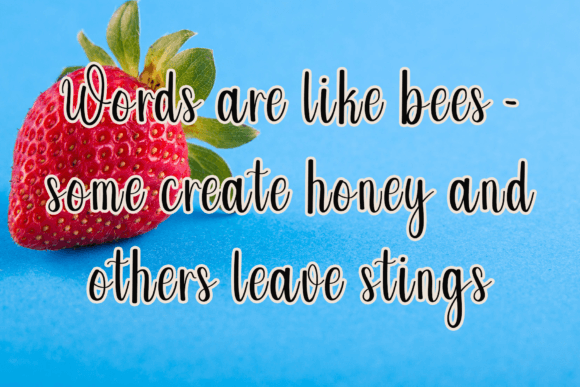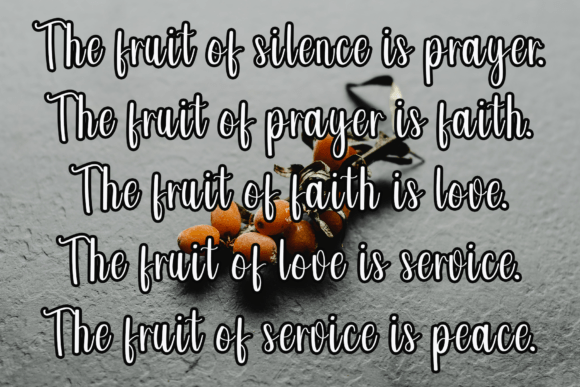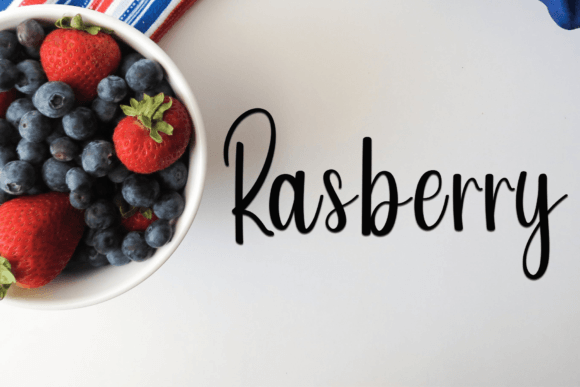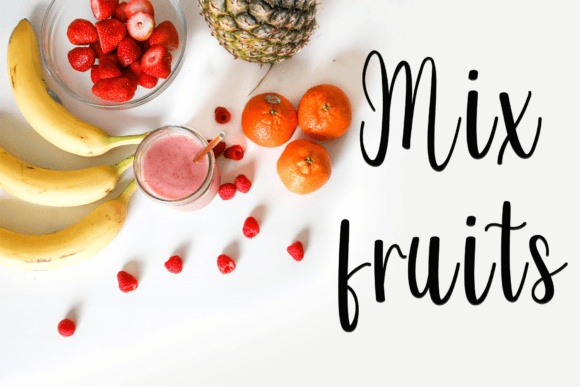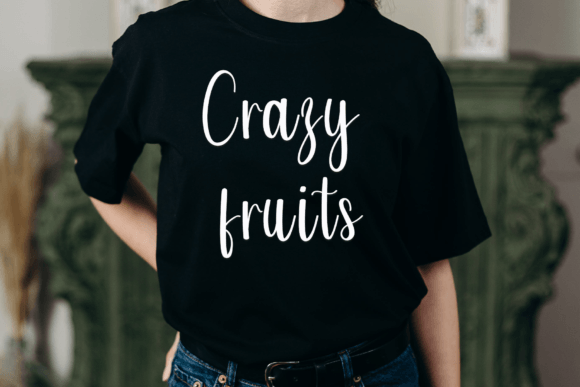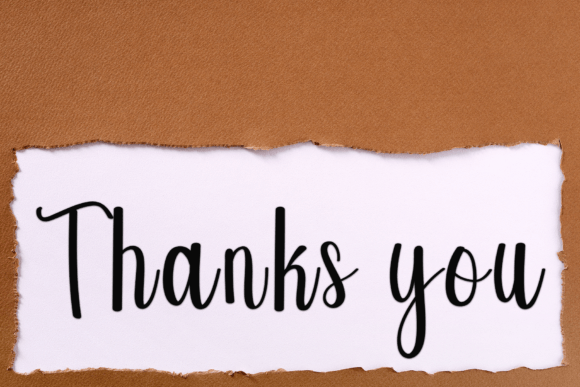
Unleash Your Creativity with the Perfect Font
Have you ever stared at a blank canvas, feeling like your creative ideas are stuck in limbo? You know the feeling when everything just clicks, and your design comes alive? For designers, that moment is pure magic. It’s the moment when you find the perfect combination of colors, shapes, and – of course – fonts. That’s exactly what happens when you add the Cranberries Font to your design.
This cool, simple, and playful handwritten font is incredibly versatile, making it the perfect addition to any design project. Whether you’re creating a logo, a social media post, or a brochure, the Cranberries Font is sure to elevate your design to new heights. Its value lies in its ability to add a touch of personality and whimsy to any project, making it a must-have for designers who want to stand out from the crowd.
Cranberries Font Key Features
- Font Family: A unique, handwritten script font designed to evoke a sense of elegance and sophistication.
- Character Set: Includes a wide range of characters, including uppercase and lowercase letters, numerals, punctuation, and special characters.
- Unique Characteristics: Features a distinctive, cursive style with varying line widths and subtle flair, perfect for adding a touch of personality to designs.
Cranberries Font Review
As a designer, I was initially drawn to the Cranberries Font due to its unique, hand-drawn feel. ✨ The font’s imperfections and subtle quirks give it a charming, human touch that’s perfect for creative projects or brand identities that want to stand out from the crowd.
One of the things I appreciate about Cranberries is its versatility. ✨ It can be used for both display and body text, making it a great option for designers who need a font that can adapt to different contexts. The font also comes in a range of weights, from light to bold, which adds to its overall flexibility.
While Cranberries is a great font, there are a few limitations to be aware of: ⚠️ The font may not be suitable for large blocks of text, as its imperfections can become distracting at scale. Additionally, the font’s character set is not as comprehensive as some other fonts, which may limit its use in certain languages or applications.
Overall, I’m a fan of the Cranberries Font. While it may not be the best choice for every project, its unique charm and versatility make it a great option for designers who want to add a bit of personality to their work. With its imperfections and quirks, Cranberries is a font that’s sure to spark conversation and leave a lasting impression.
- ✨ Unique, hand-drawn feel
- ✨ Versatile and adaptable
- ✨ Comes in a range of weights
- ⚠️ May not be suitable for large blocks of text
- ⚠️ Limited character set
The Cranberries font is ideal for use in:
- Rustic or vintage-themed designs
For optimal results, pair the Cranberries font with complementary colors and textures to create a cohesive and visually appealing design.
Alternatives to Cranberries Font
Carolyna Pro is a modern script font with a elegant and sophisticated feel. It’s perfect for designers looking to create a luxurious and high-end look. It’s ideal for wedding invitations, luxury branding, and fine art.
Compared to Cranberries Font, Carolyna Pro has a more refined and polished look, making it a great choice for designers who want to elevate their designs. It has a similar organic feel but with a more sophisticated edge.
Alex Brush is a handwritten font with a whimsical and artistic feel. It’s perfect for designers looking to add a touch of personality and creativity to their designs. It’s ideal for branding, packaging, and editorial design.